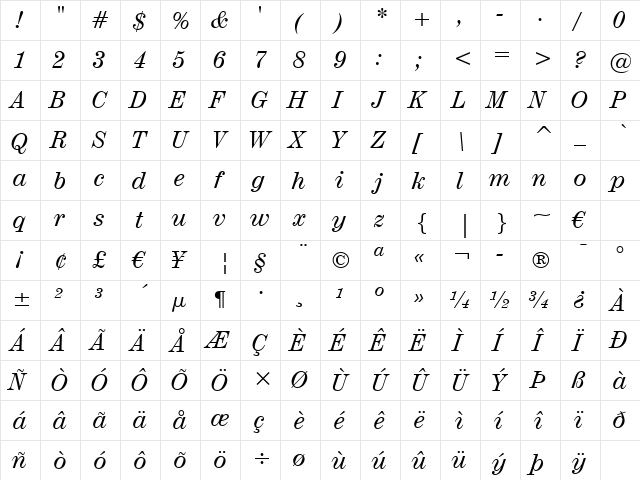
Century725 BT Italic
Design Context for Century725 BT Typeface
Century725 BT takes a measured approach to typography — its balanced proportions and neutral character make it a reliable workhorse for both digital and print work. The dynamic lean of this cut emphasises speed and emphasis in any layout.
Pro Tip: Try Century725 BT for annotation and caption copy alongside an upright companion — the contrast in angle creates a dynamic but ordered typographic system.